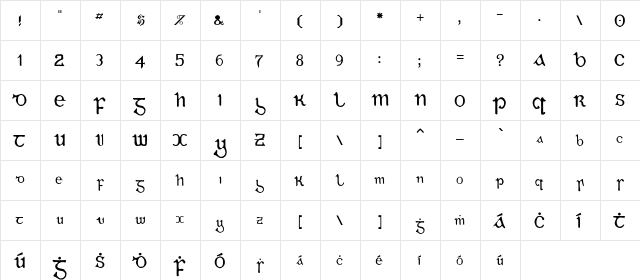
Gaeilge Regular Font Preview
Gaeilge Regular
Design Context for Gaeilge Typeface
Gaeilge takes a measured approach to typography — its balanced proportions and neutral character make it a reliable workhorse for both digital and print work.